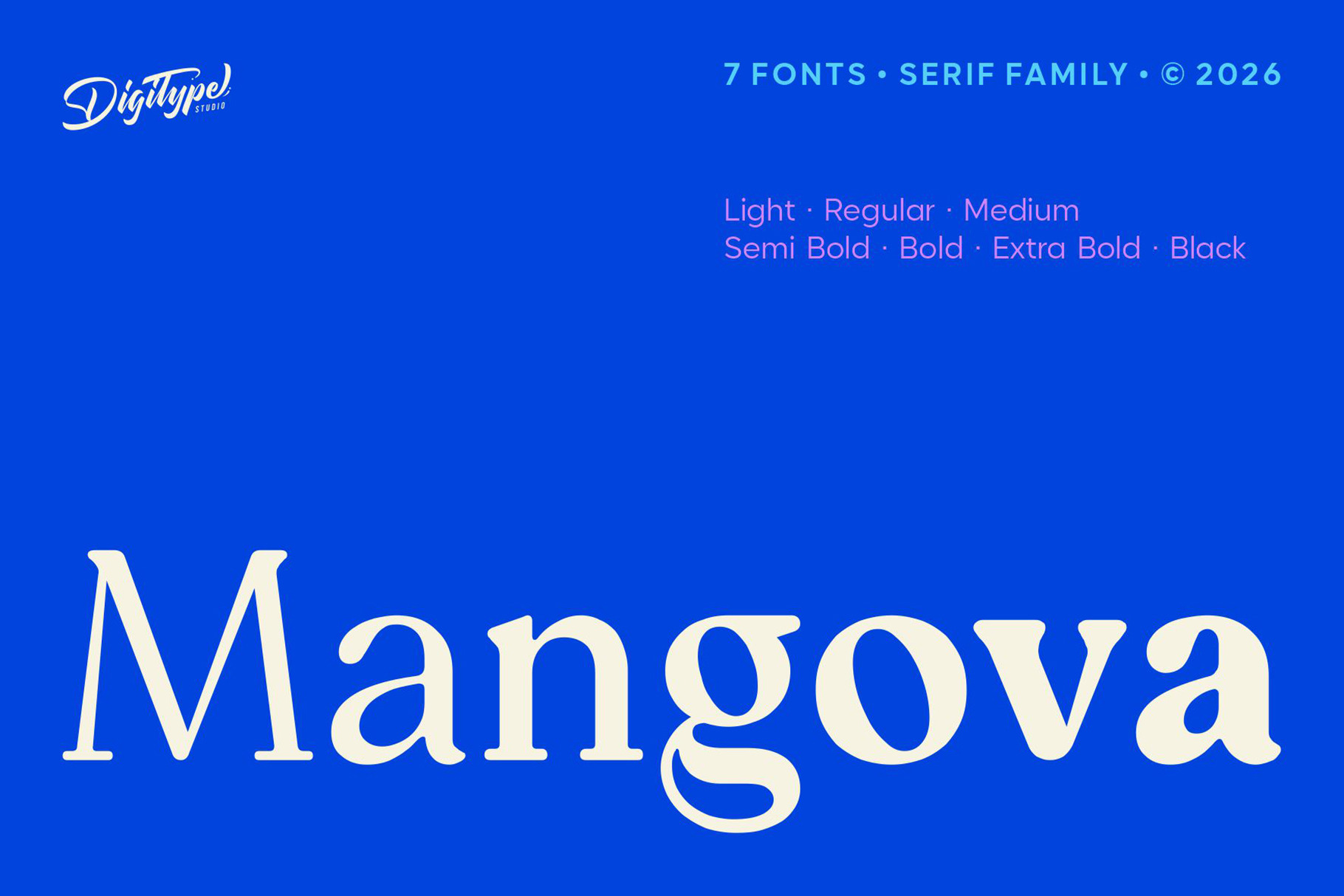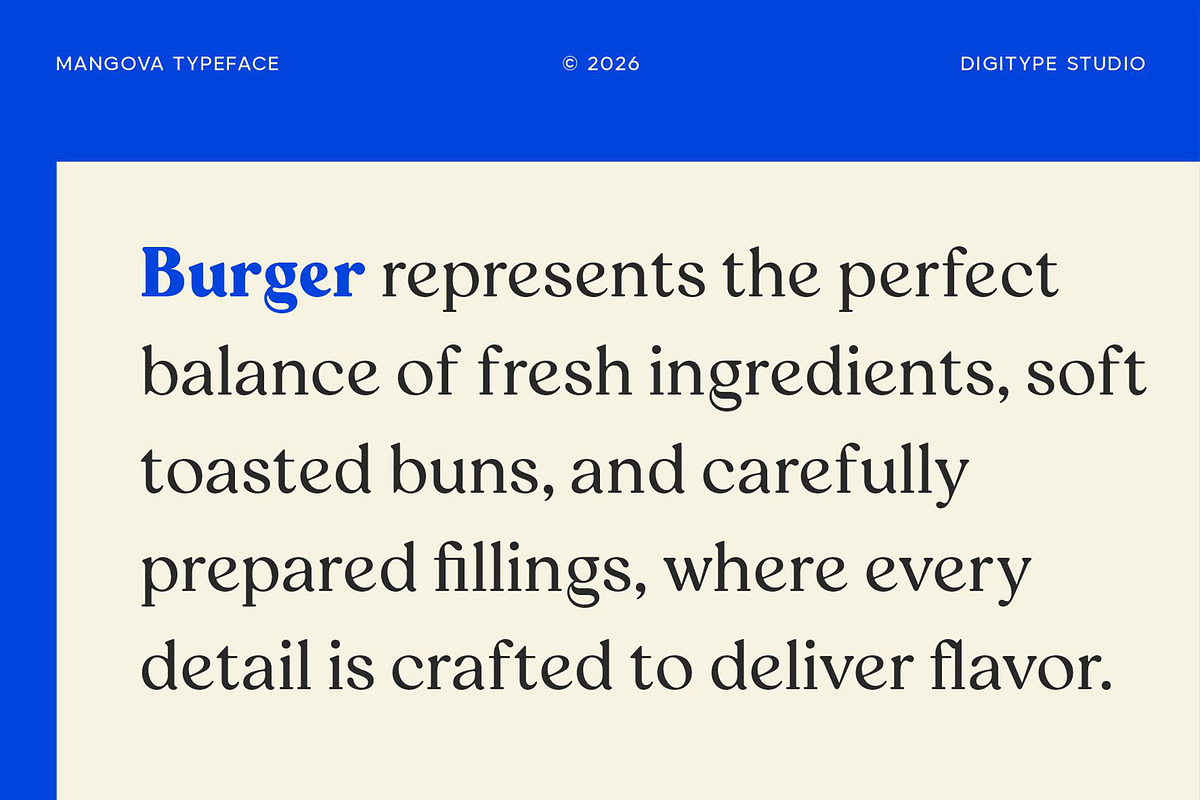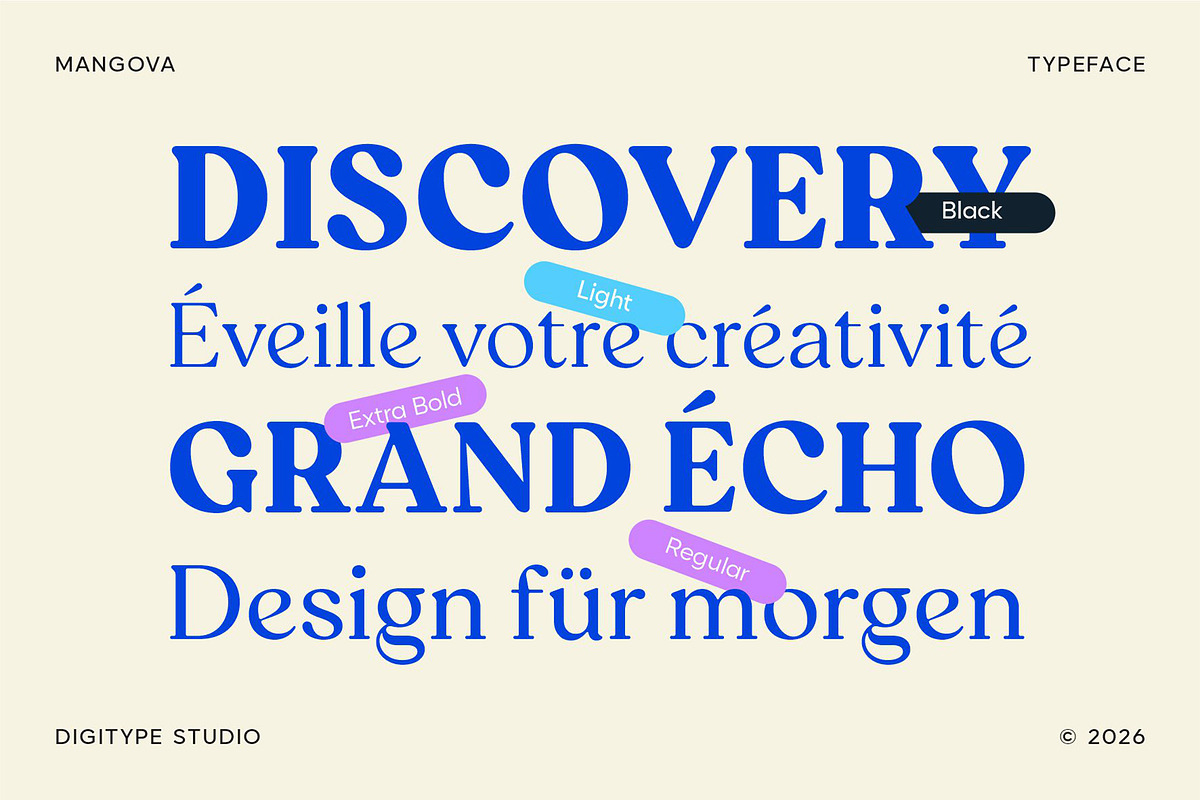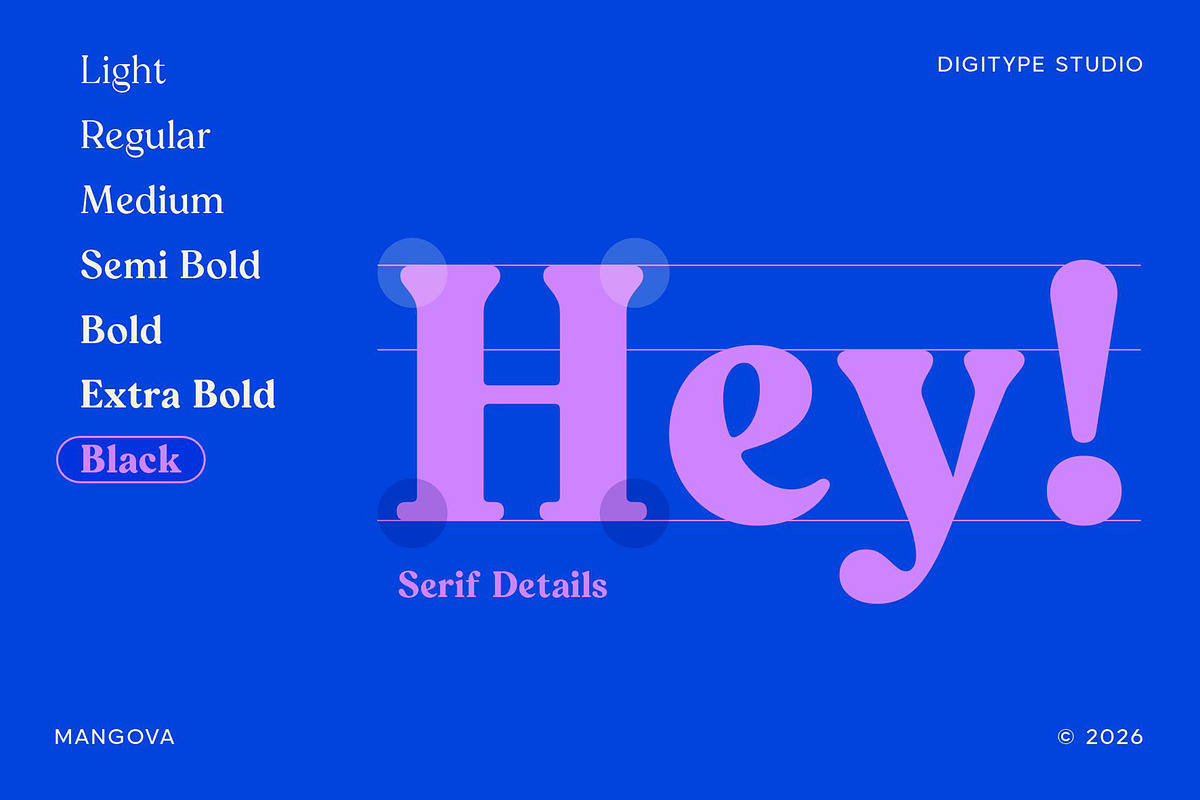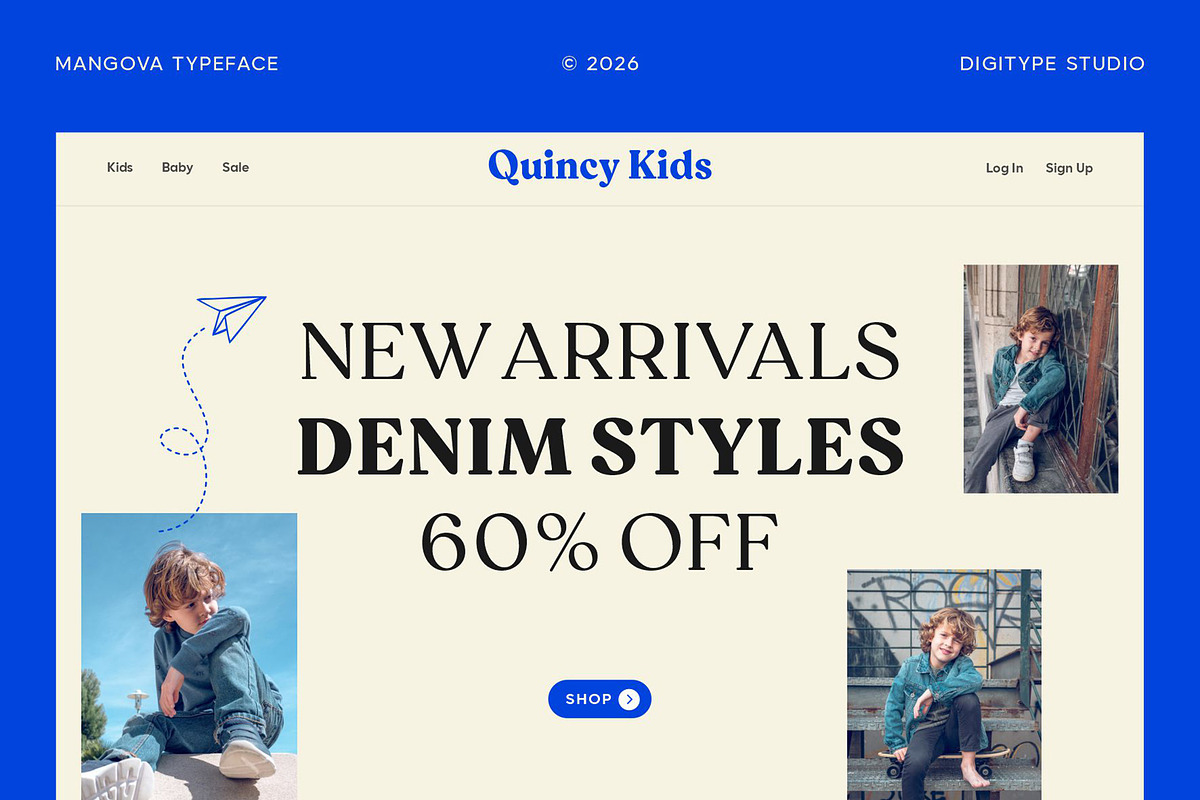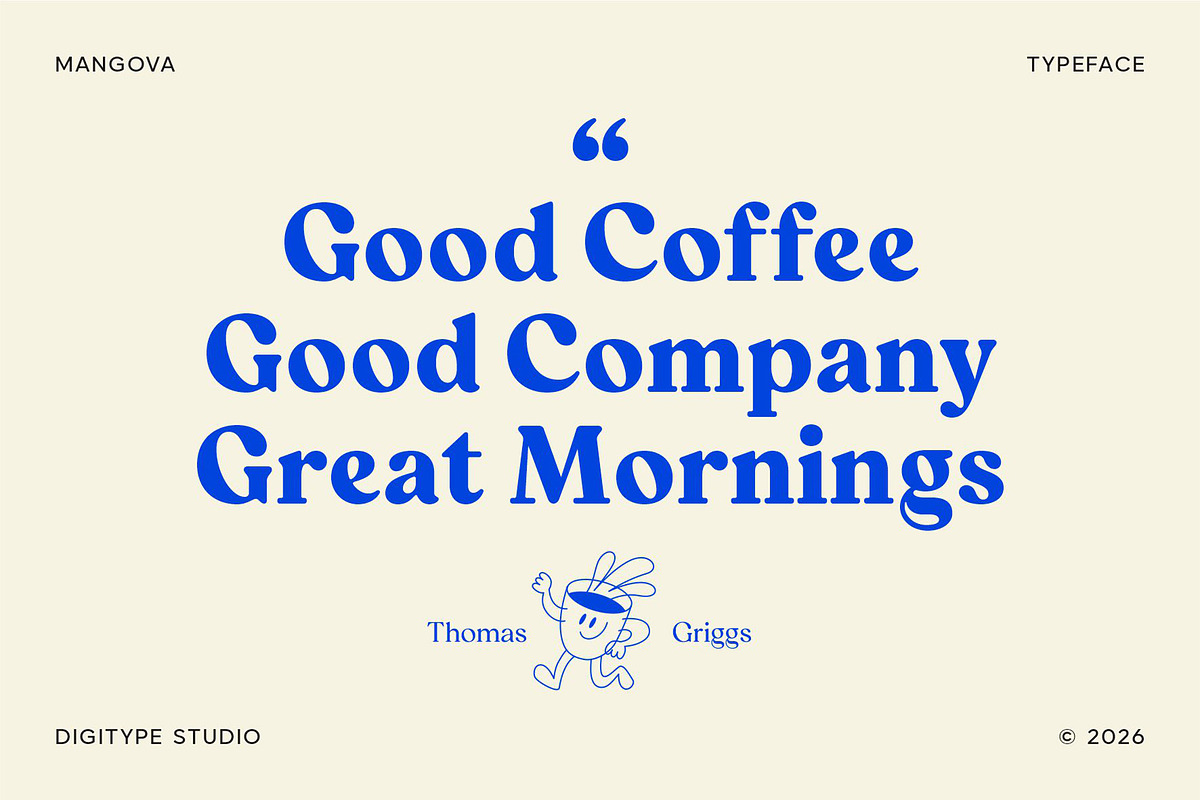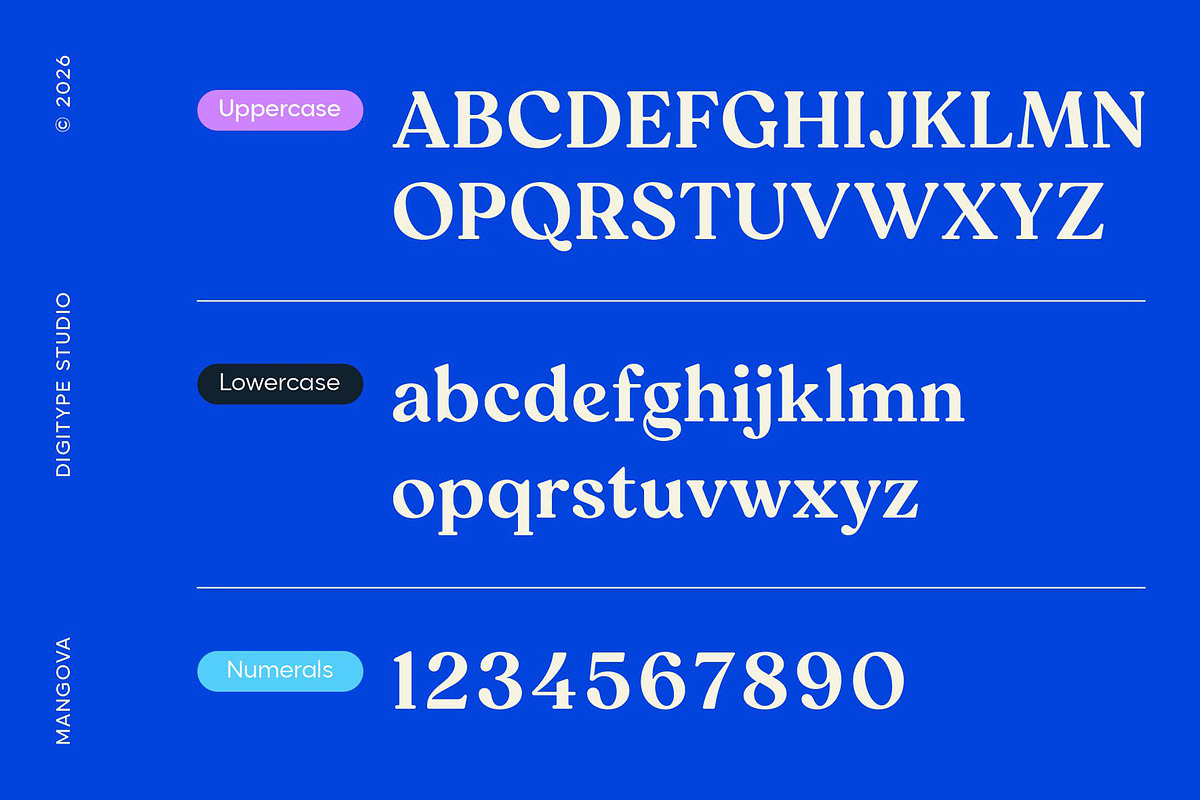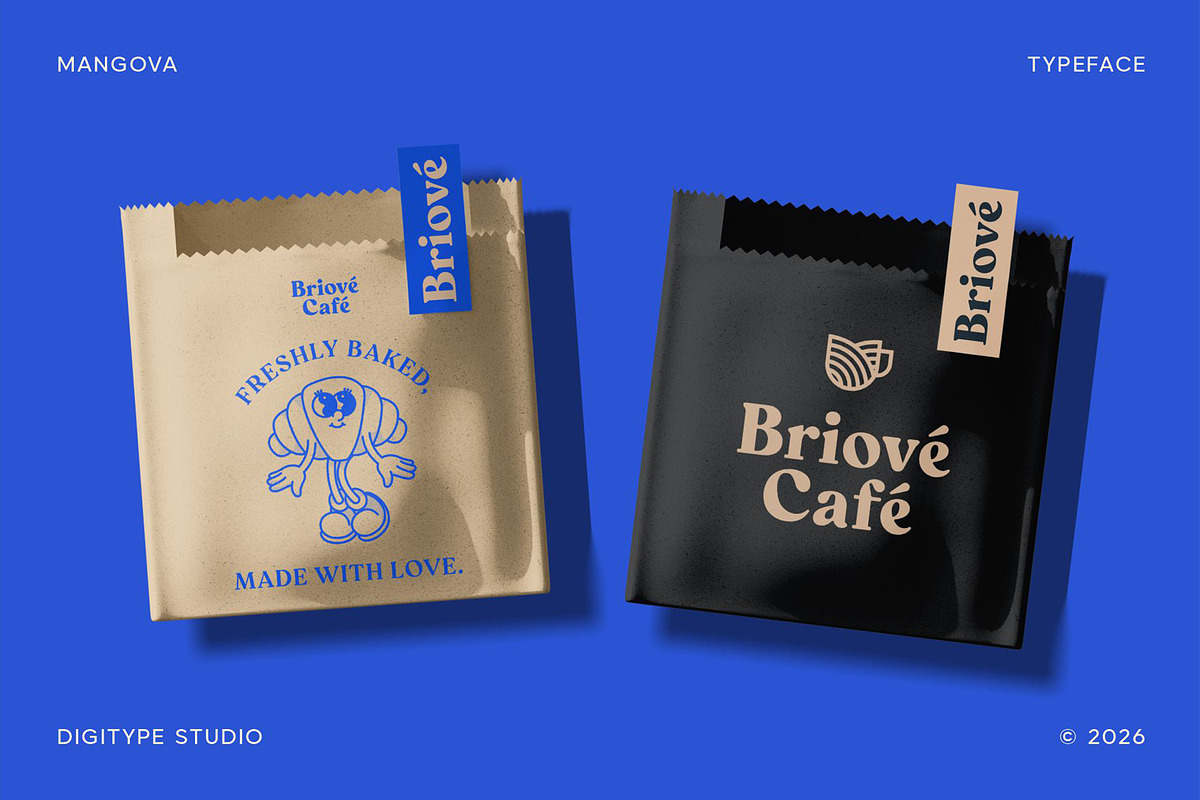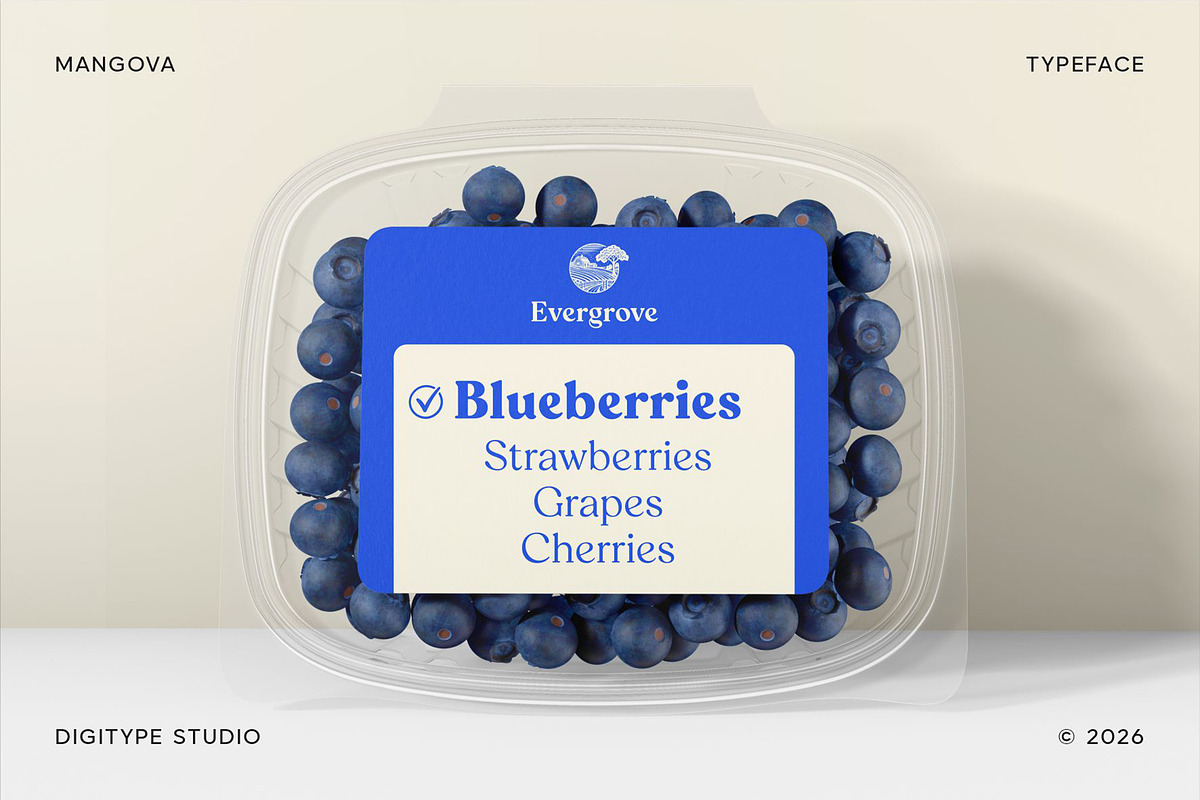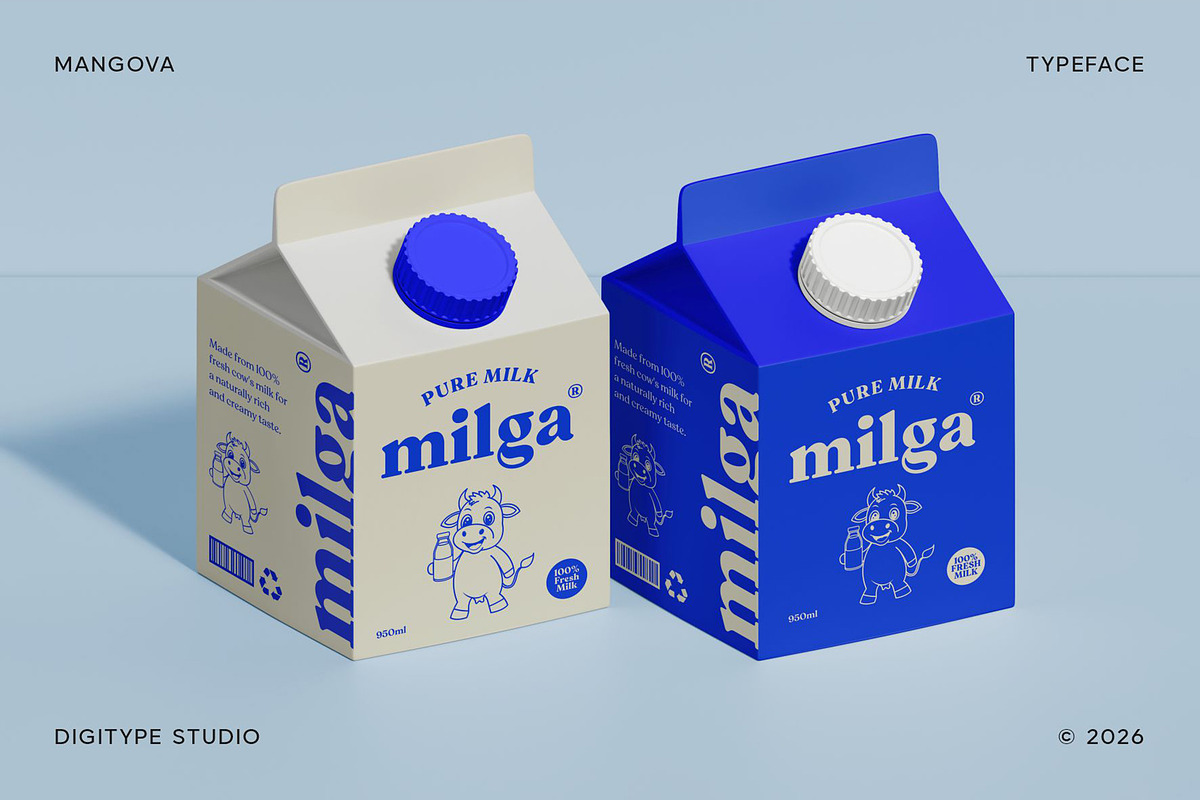
Mangova Font Family
Mangova is a modern serif typeface that combines timeless elegance with a contemporary touch. Inspired by the form of a mango, its distinctive lowercase "g" becomes the typeface's signature feature, adding a unique visual identity. Available in 7 weights (Light–Black), Mangova features concave upper serifs and square lower serifs with subtle curves, creating a refined visual balance throughout its uppercase letterforms. Elegant, warm, and highly recognizable, Mangova is perfect for branding, editorial layouts, packaging, and digital design, delivering both personality and exceptional readability.